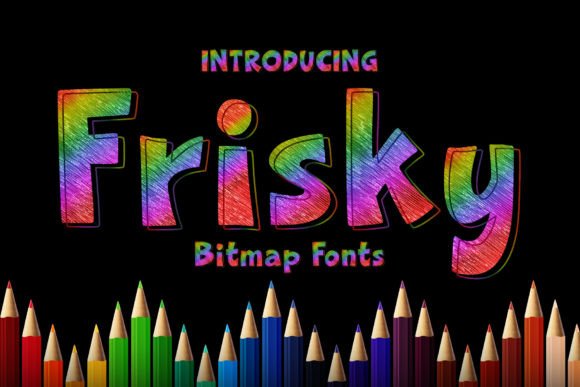
Introducing Frisky Font, the ultimate font for card design! Created by the talented Fox7, this colorful font is guaranteed to unlock your imagination and take your designs to new heights. Whether you're a seasoned professional designer or an aspiring creative, Frisky Font is the perfect tool to add a vibrant pop of color and excitement to your projects.
Imagine the possibilities with Frisky Font at your fingertips. Every stroke and curve of this font exudes energy and playfulness, making it the ideal choice for greeting cards, invitations, and any design that needs a touch of whimsy. With its captivating and eye-catching style, Frisky Font will instantly grab attention and leave a lasting impression.
But Frisky Font is more than just a pretty face. It is a powerful resource that empowers you to create stunning designs effortlessly. Its extensive character set and versatile variations allow you to customize and personalize your projects with ease. Whether you want to create bold headlines or delicate script, Frisky Font has got you covered.
But don't just take our word for it. Join the countless designers and creatives who have already fallen in love with Frisky Font. They have experienced firsthand how this font transforms their projects from ordinary to extraordinary. Let Frisky Font be your secret weapon in capturing hearts and captivating audiences.